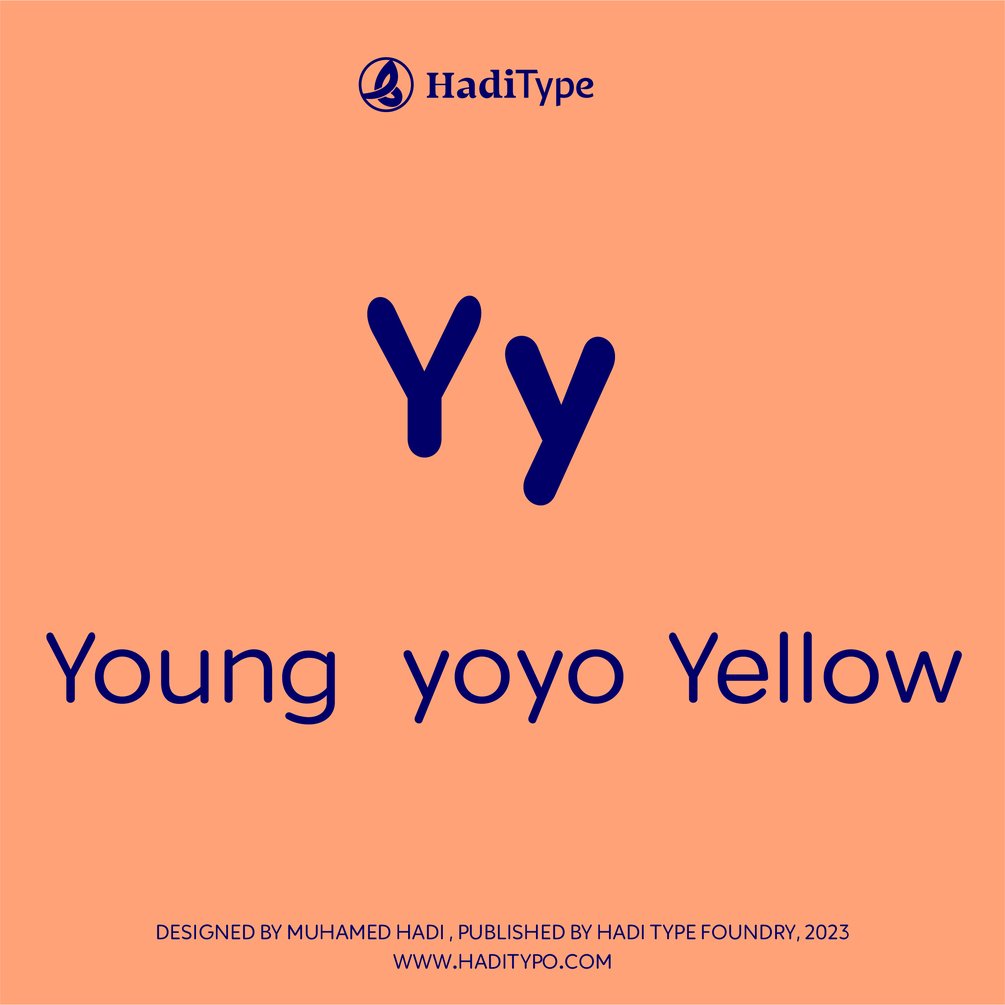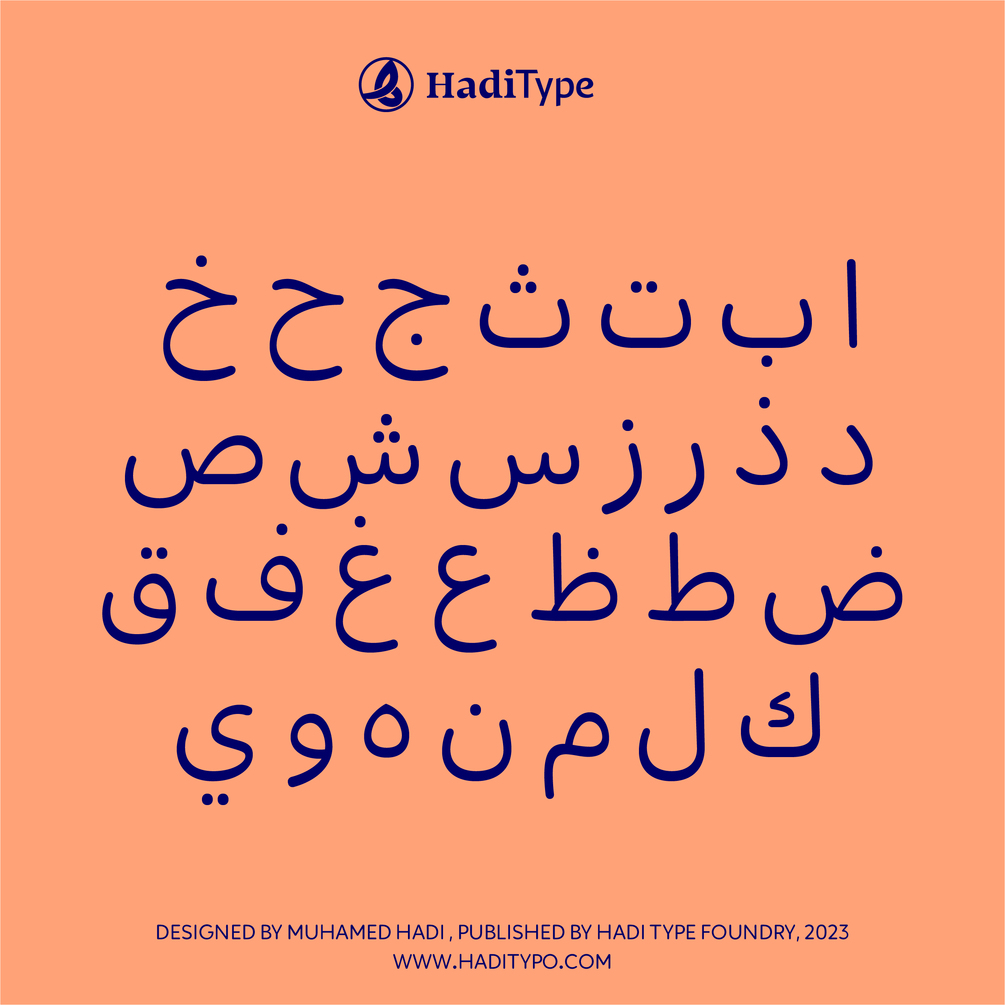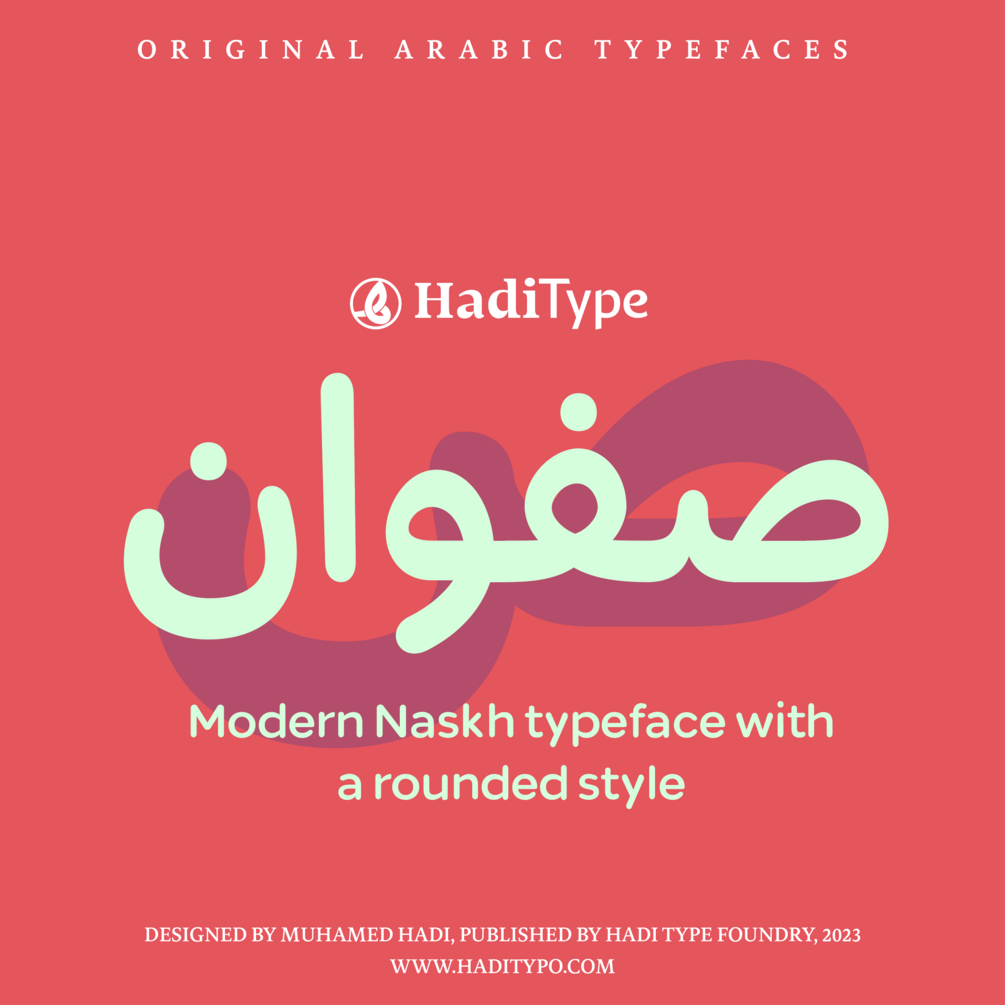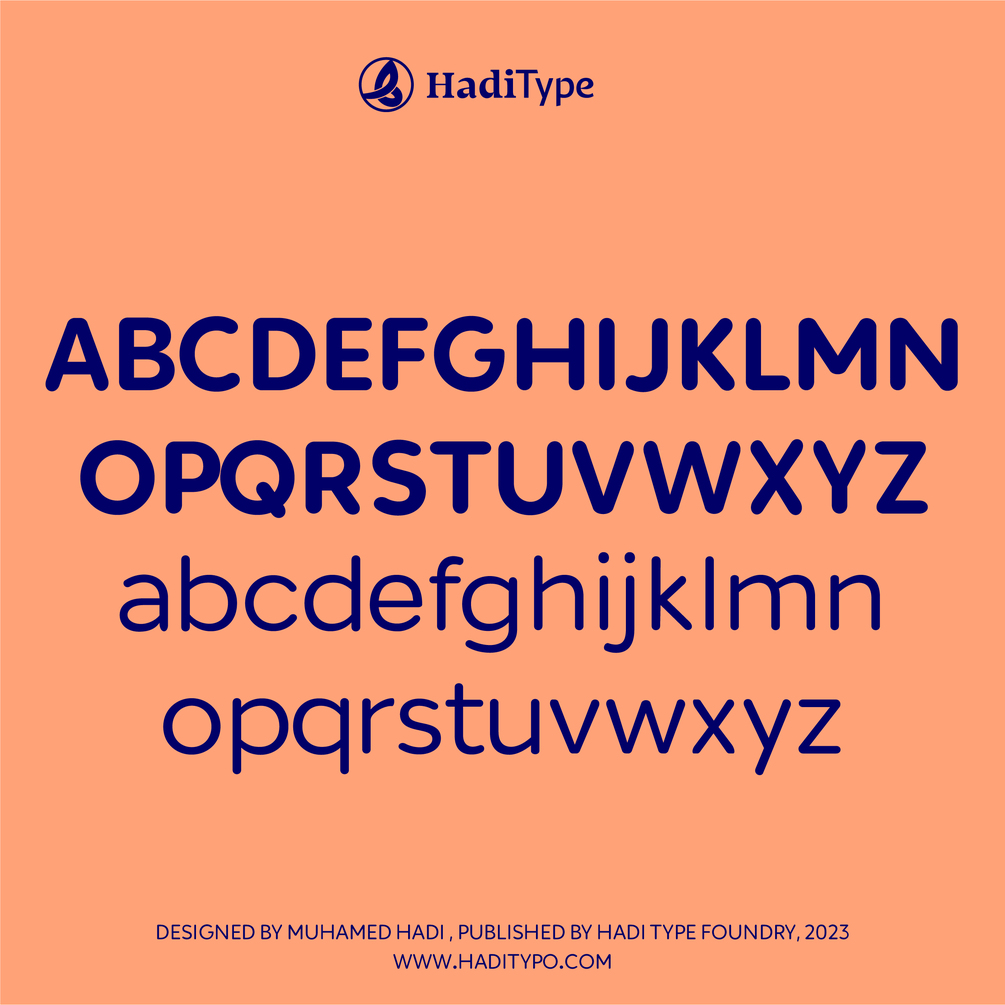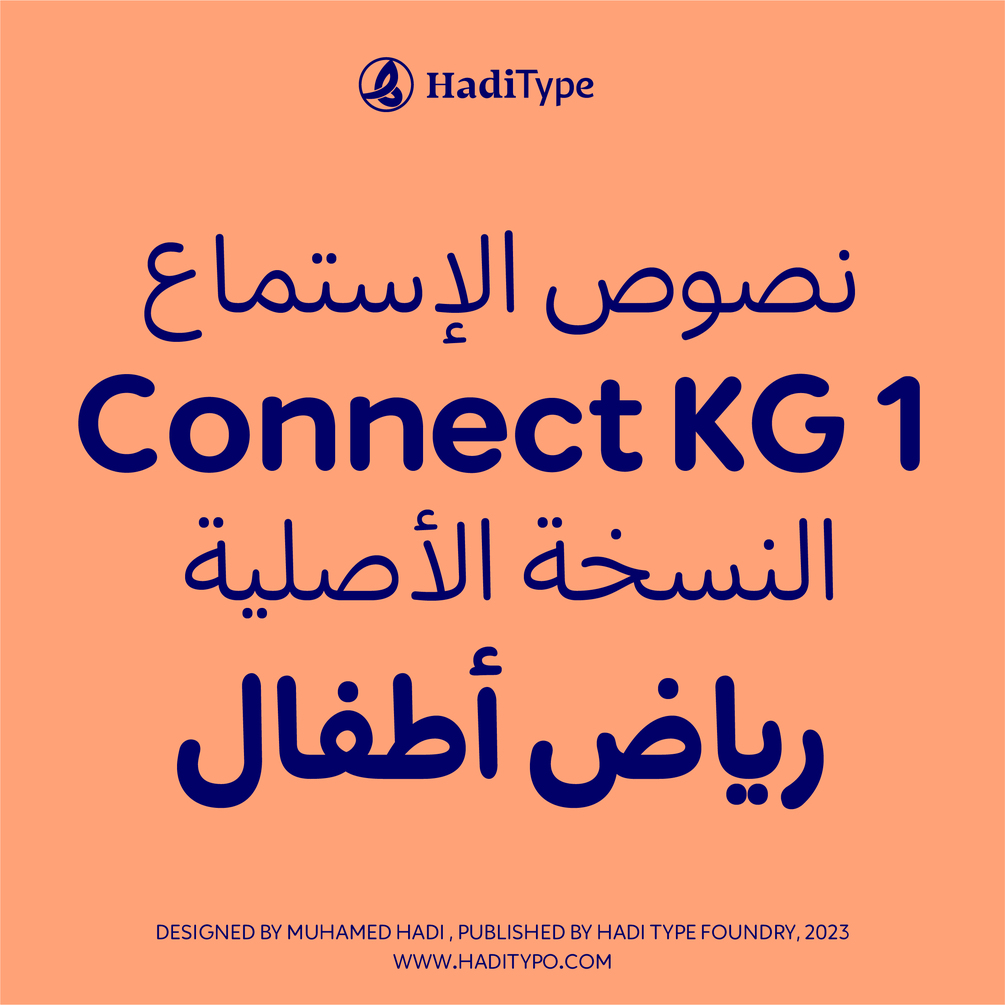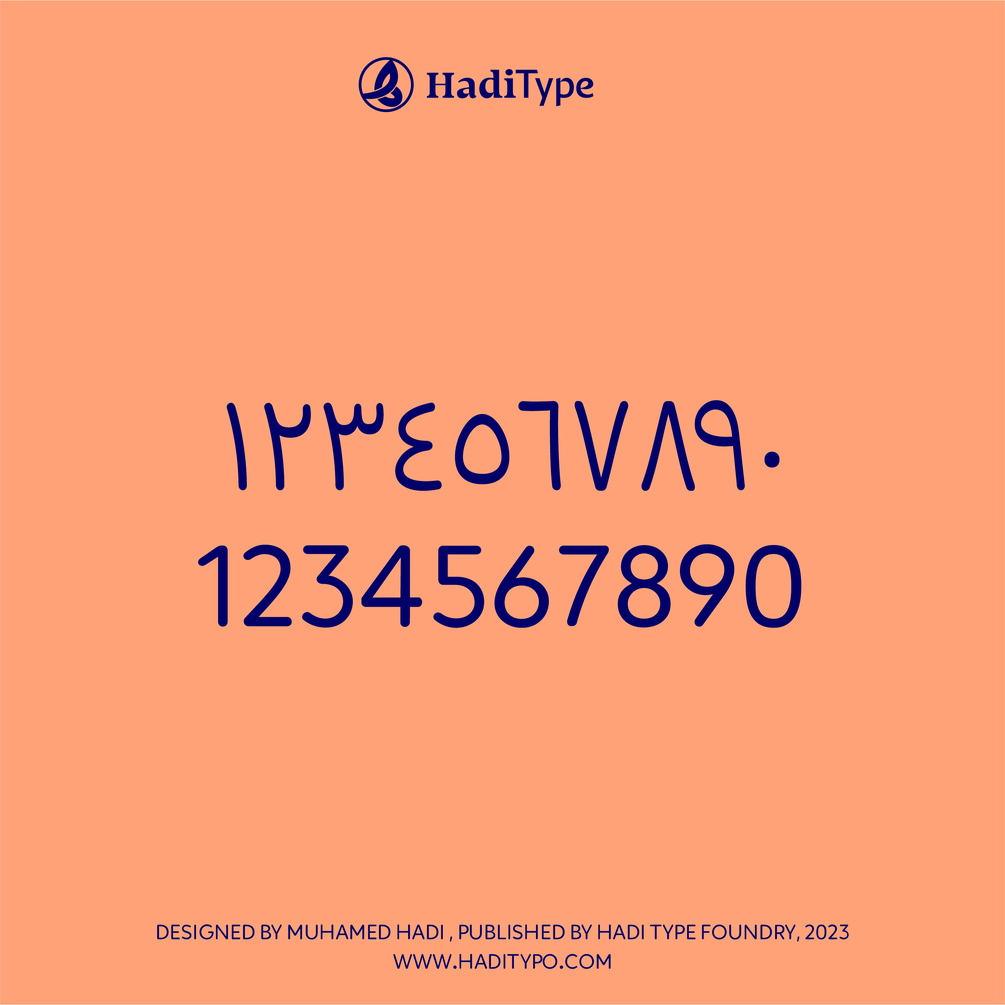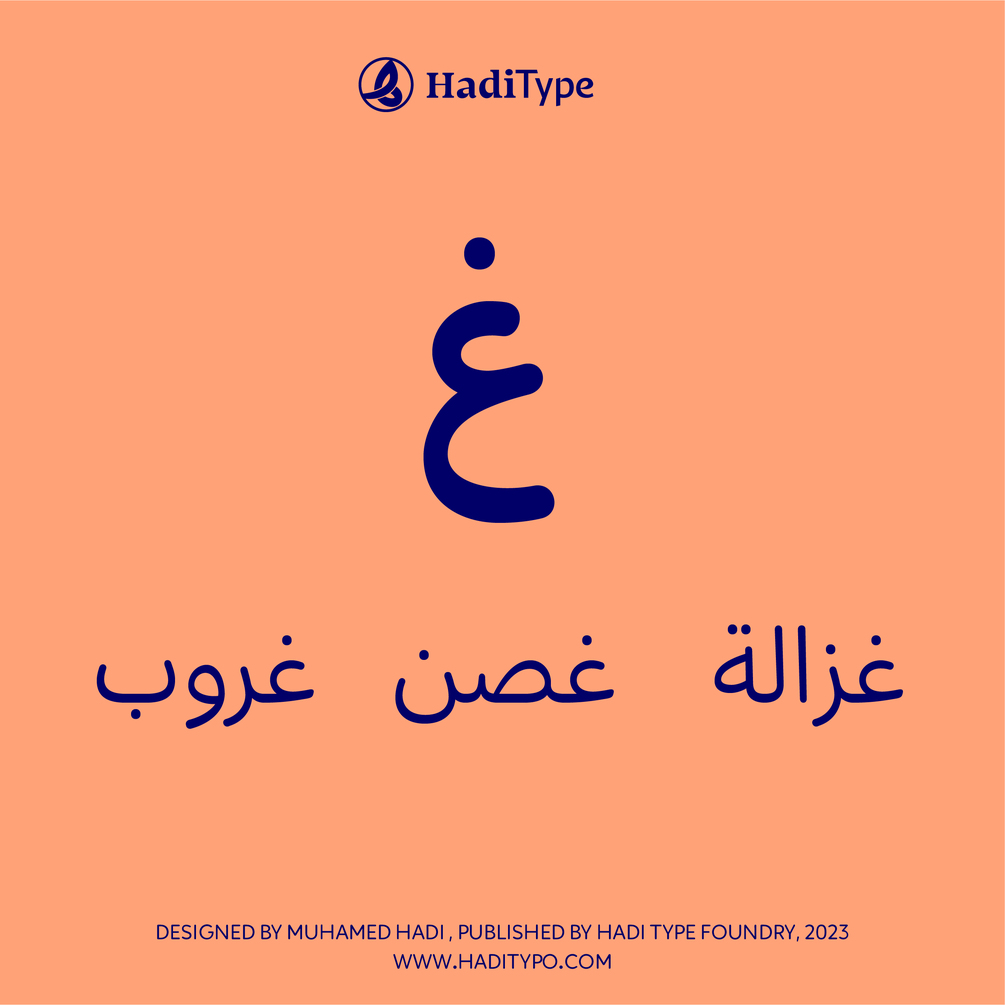
HT Safwan
HT Safwan is a modern Naskh typeface with a rounded style. It blends traditional Arabic calligraphy with a contemporary design. Its soft curves and smooth transitions create a harmonious balance between elegance and readability, making it suitable for digital and print applications.
HT Safwan is perfect for branding, advertising, and user interfaces where clarity and a friendly tone are essential.